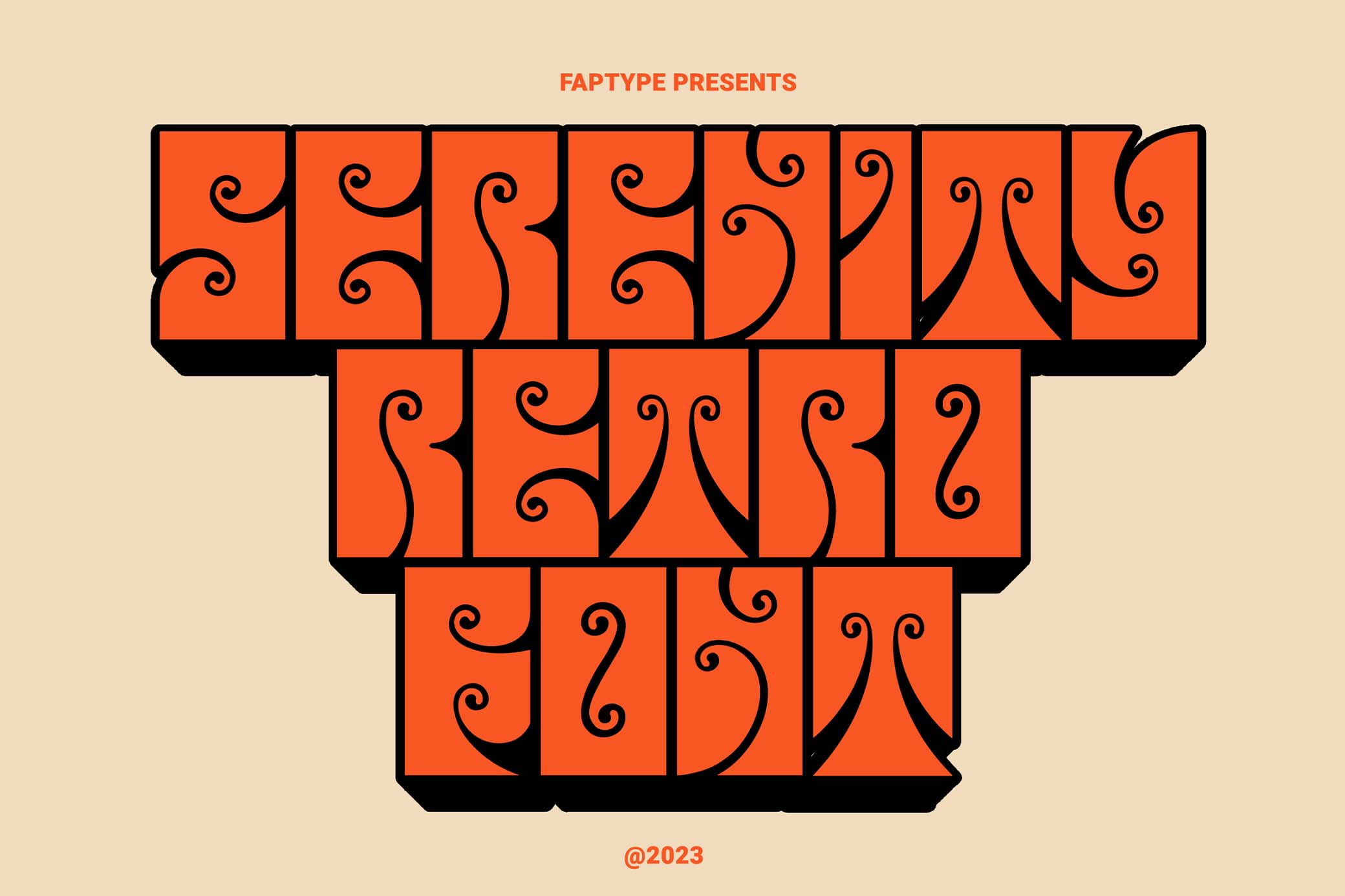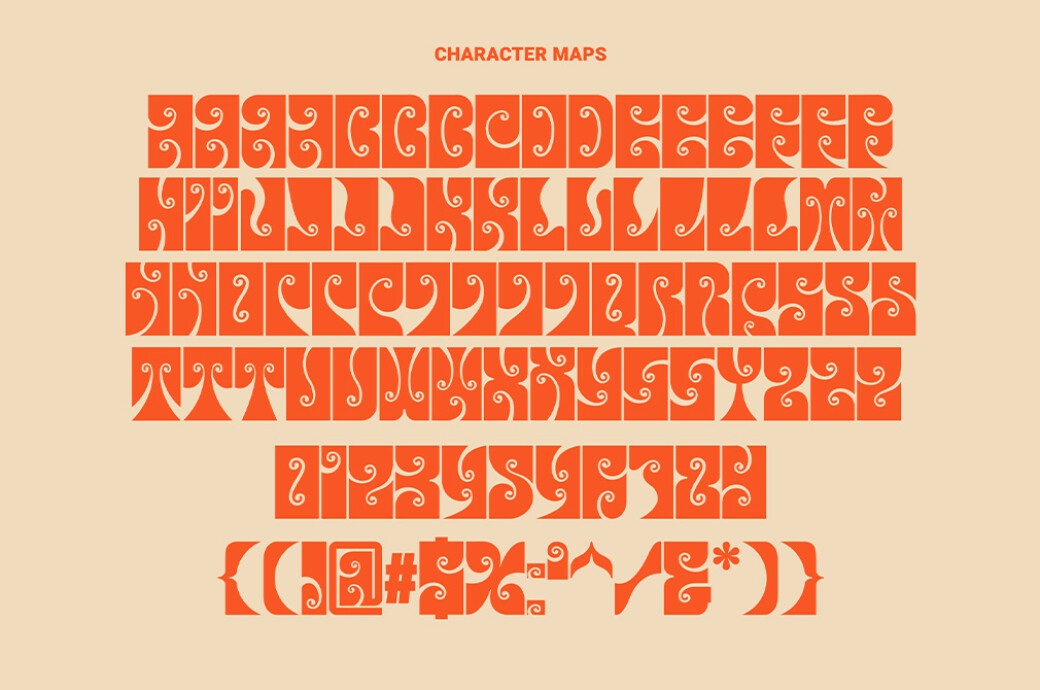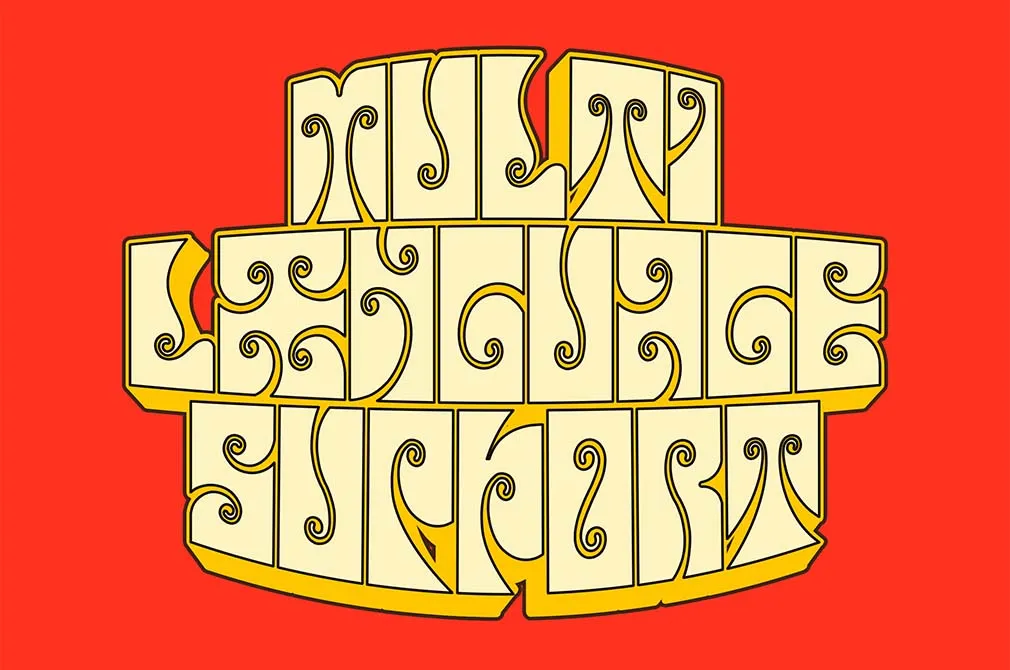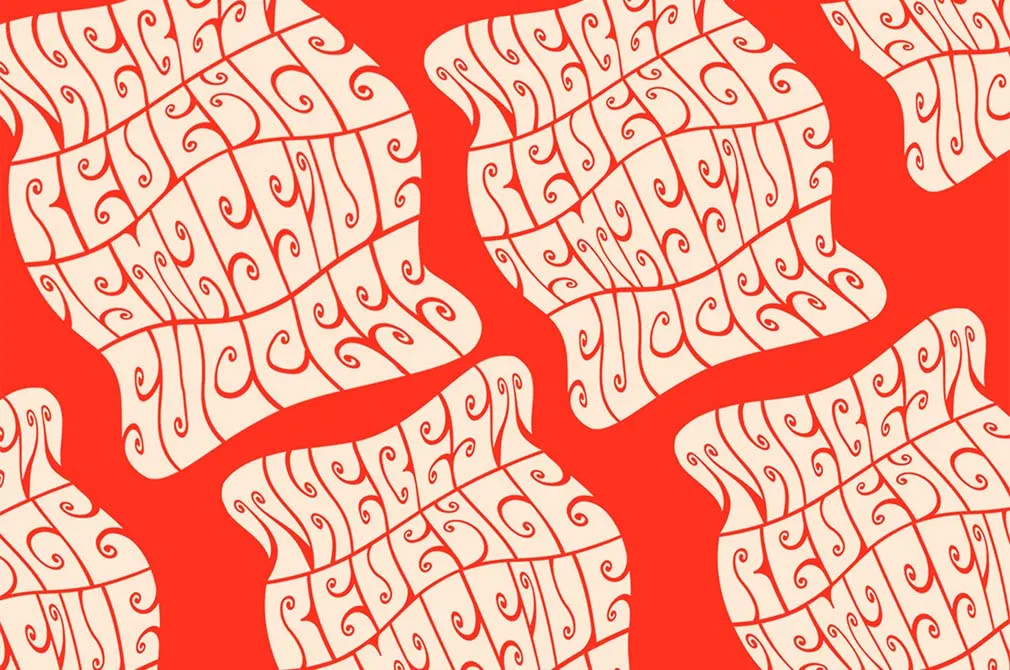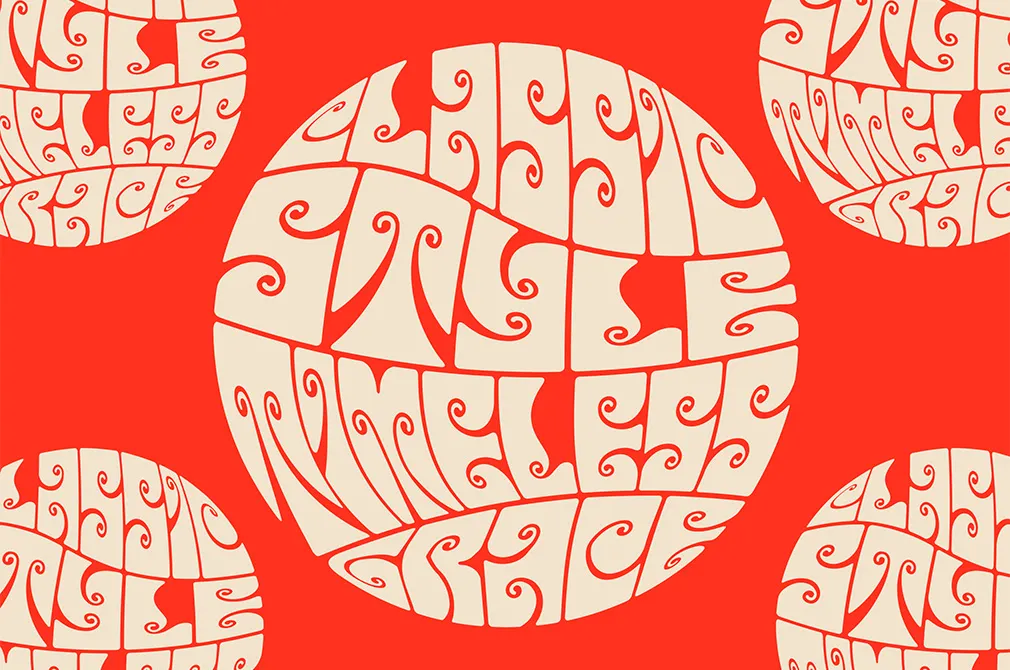
Serenity | Squared Retro Font
Serenity is a captivating vintage font that elegantly blends the charm of yesteryears with a contemporary flair. It pays homage to the classic typography of vintage eras while embracing modern design sensibilities.
With an extensive collection of alternates for each character, this font empowers you to infuse your text with a personalized touch. Along with a complete set of characters and multilingual support, the alternates allow you to experiment and create spirited posters, prints, apparel, stationery, branding, and more. Serenity comes in 2 styles**(regular** and rounded), with 2 additional styles for each: rounded and extruded.